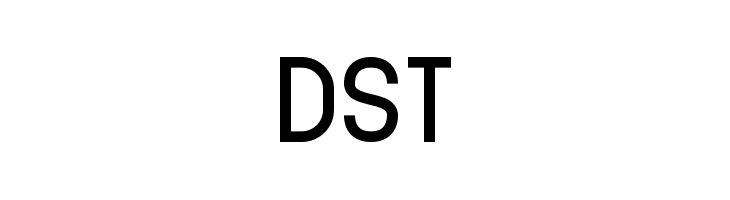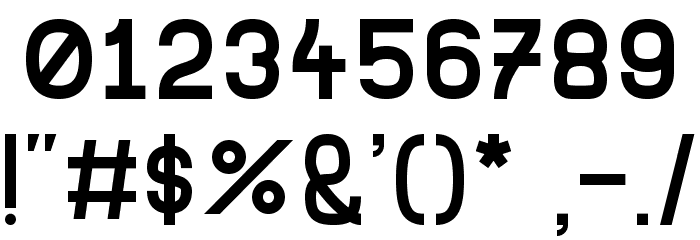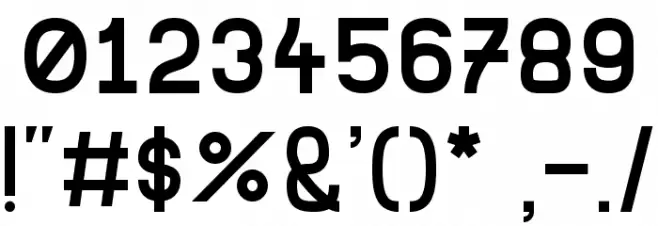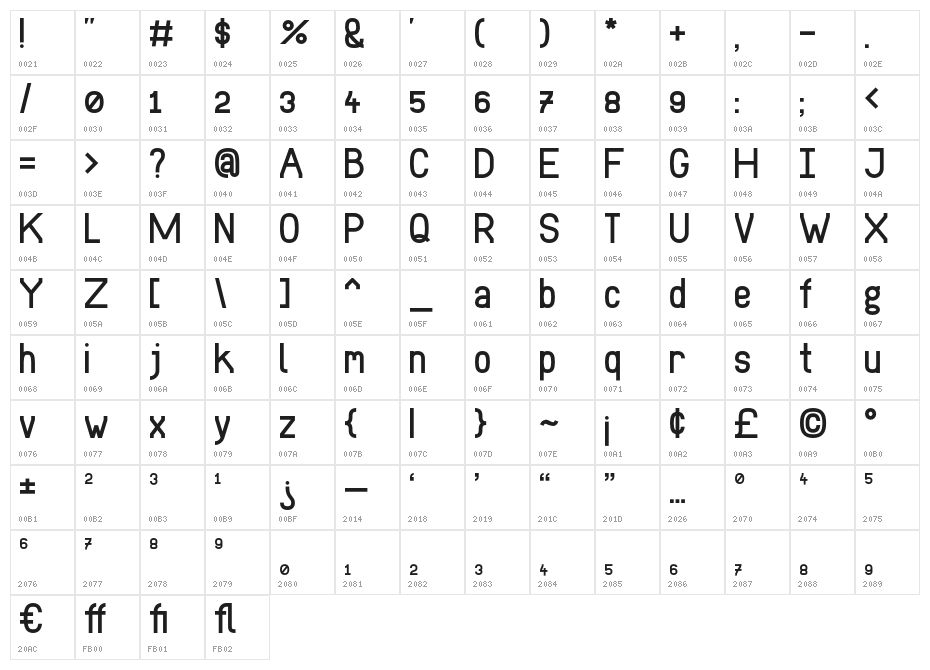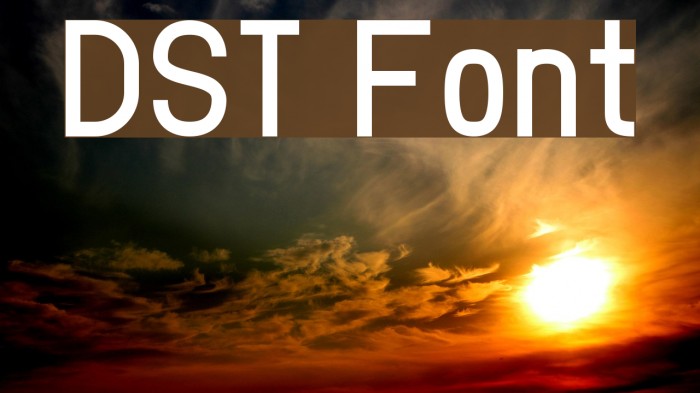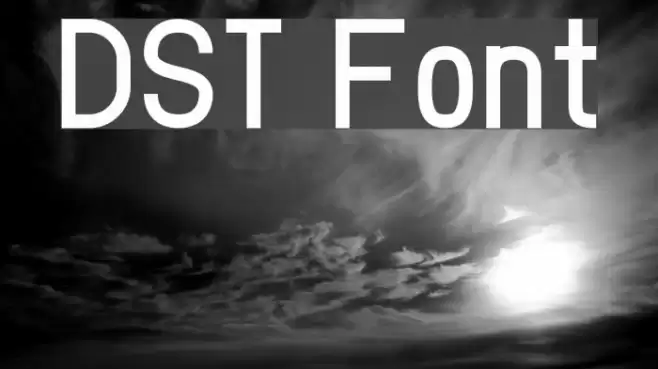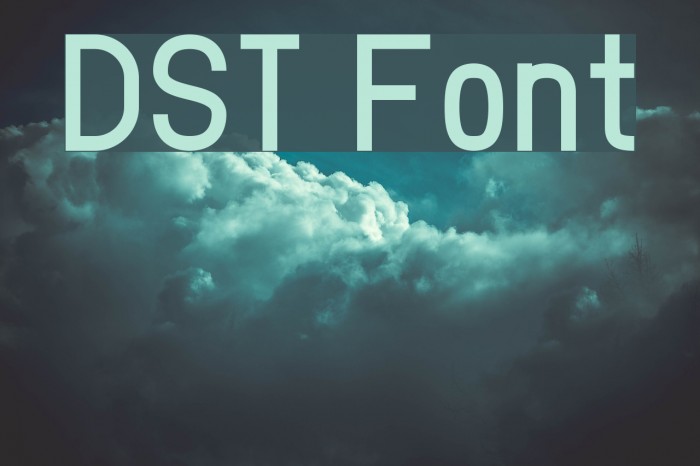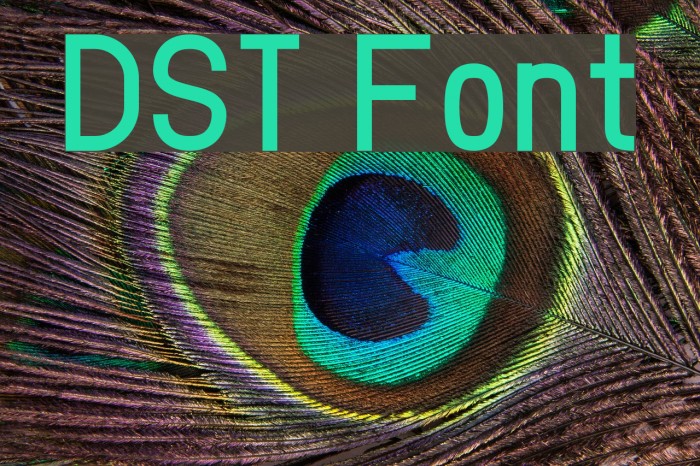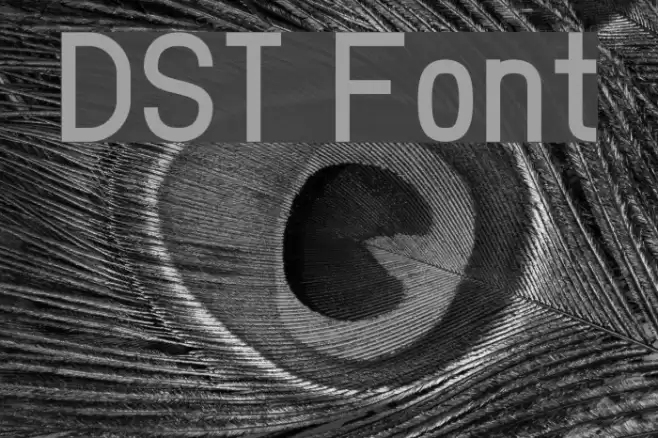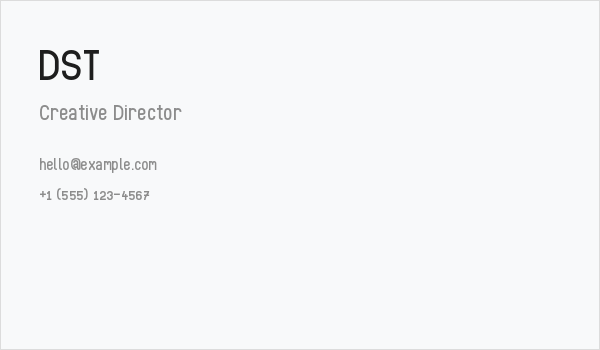
DST Font
DST Description
This font features a clean and modern sans-serif design, characterized by its geometric shapes and uniform stroke widths. The uppercase letters are bold and assertive, with a slightly condensed appearance that enhances readability. Lowercase letters maintain a consistent height, contributing to a balanced and harmonious look. The numerals are clear and distinct, making them ideal for both digital and print formats. Special characters are well-defined, ensuring versatility across various applications. The overall style is contemporary, making it suitable for a wide range of design projects.
Use CaseHeadlines, Body text, Logos
Proposed ProjectsIdeal for branding, web design, advertising, and editorial layouts.